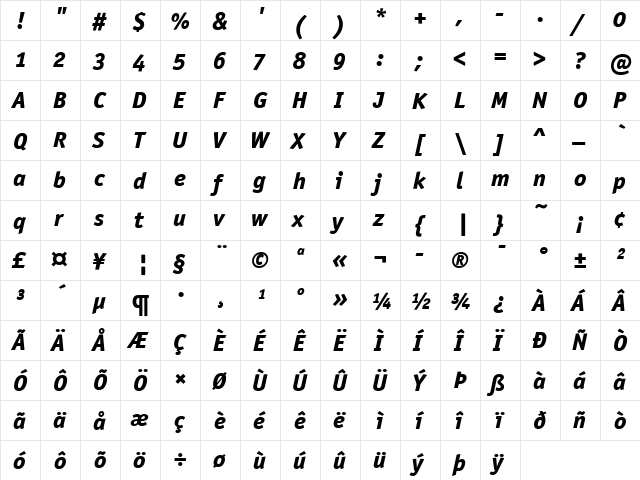
OfficinaSanITC Bold Italic Font Preview
OfficinaSanITC Bold Italic
OfficinaSanITC Bold Italic Font Details
| Foundry | \(c\) International Typeface Corporation and by Erik Spiekermann, Ole Schaefer |
Design Context for OfficinaSanITC Typeface
OfficinaSanITC is a composed and adaptable typeface that performs quietly and consistently across a wide range of design contexts. The dynamic lean of this cut emphasises speed and emphasis in any layout. The heavy weight commands attention and anchors typographic hierarchies.
Pro Tip: Try OfficinaSanITC for annotation and caption copy alongside an upright companion — the contrast in angle creates a dynamic but ordered typographic system.